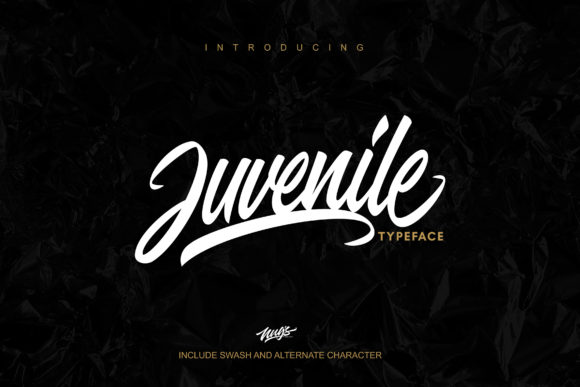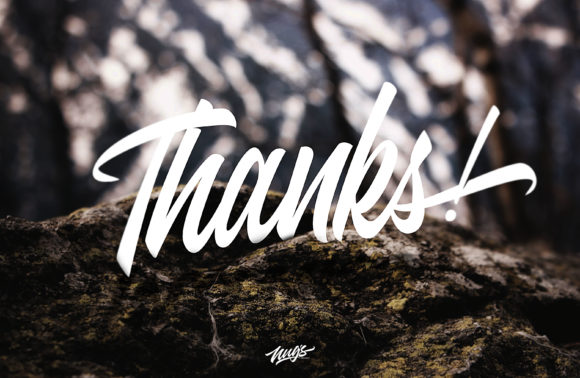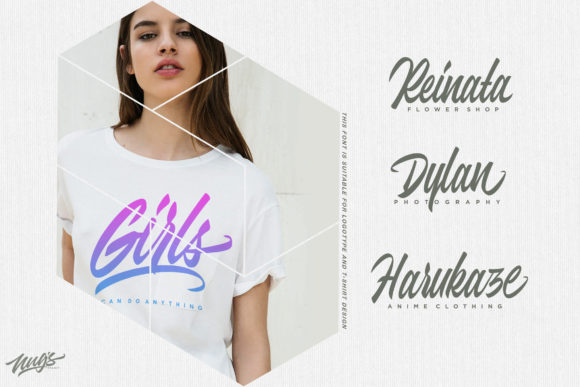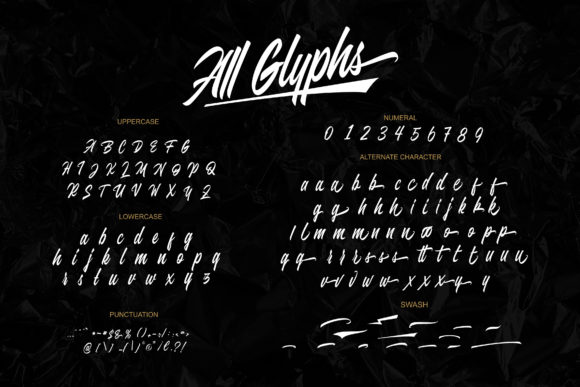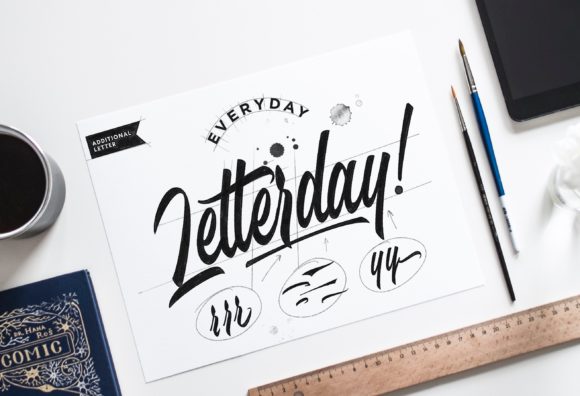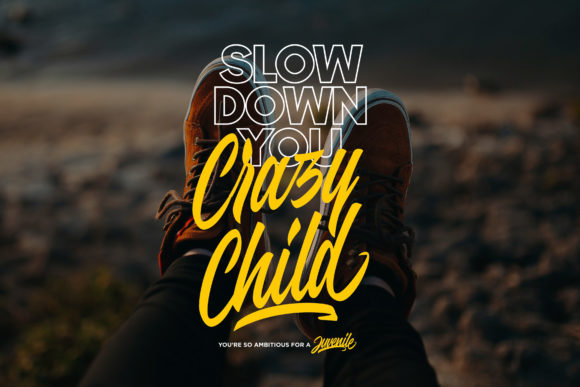
Juvenile Font
About Juvenile Font
The Juvenile is a hand lettering typeface with a brush style. It’s ideal for logos, t-shirts, product packaging, headers, posters, greeting cards, and much more!